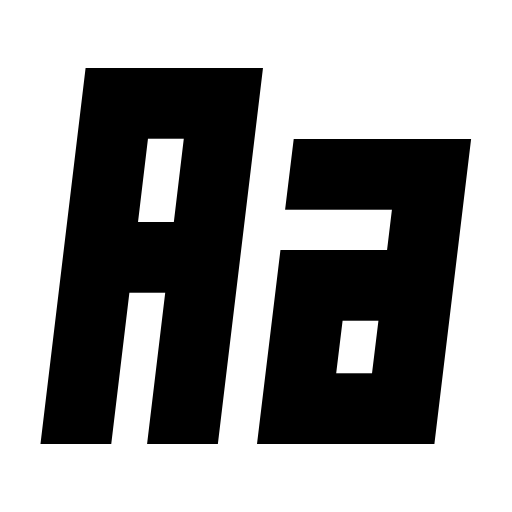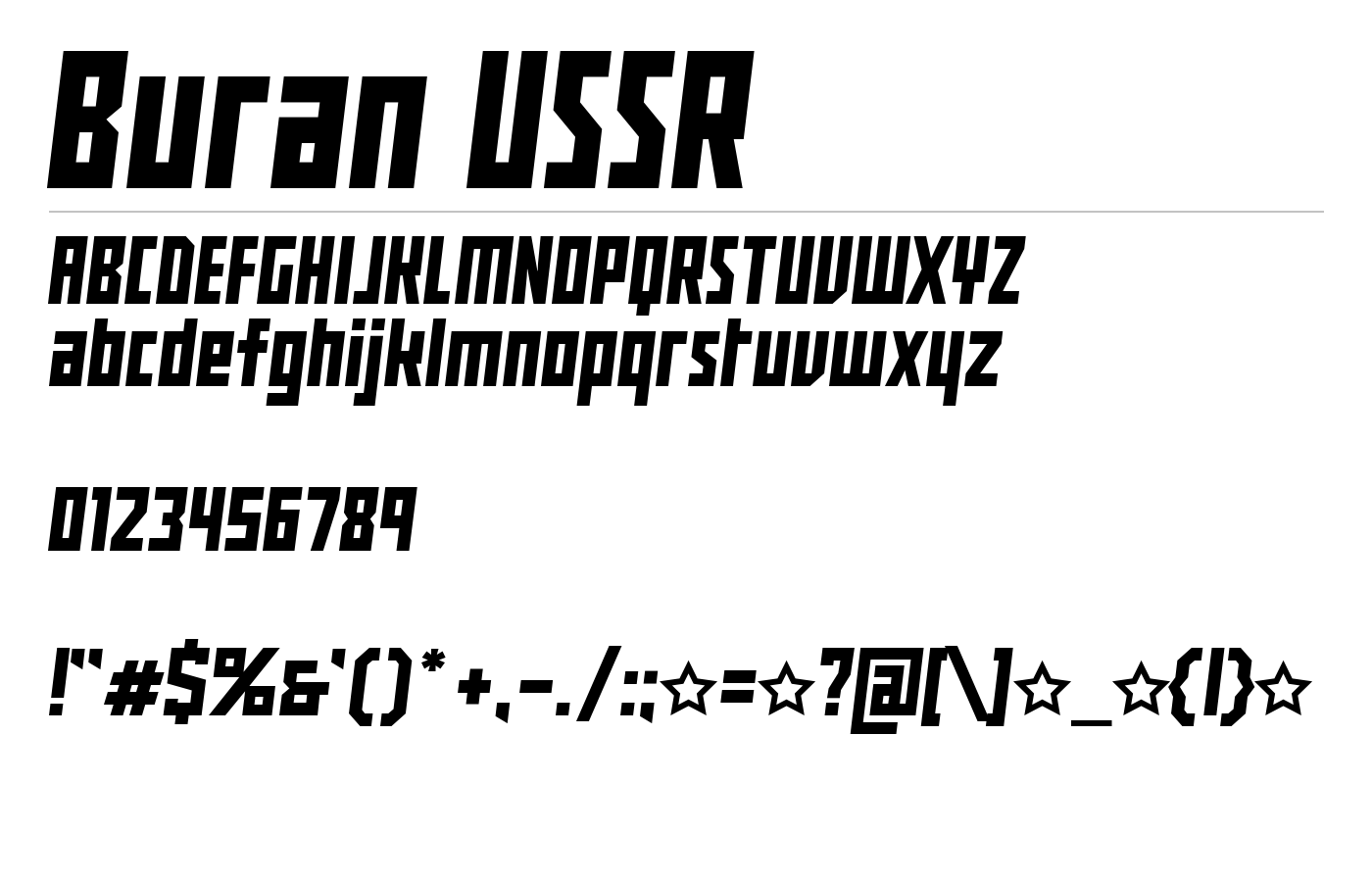
Buran USSR is a bold, condensed sans serif font with sharp, angular letterforms that convey a strong, industrial, and futuristic vibe. Its distinctive, geometric style with high x-height and tight spacing makes it ideal for headlines, logos, and branding that seek a vintage Soviet-era or technological aesthetic. This font works best in designs that aim to be impactful, modern, and somewhat nostalgic, especially in editorial or poster contexts.
Buran USSR Font
About Buran USSR Font
| Font family | Buran USSR Font |